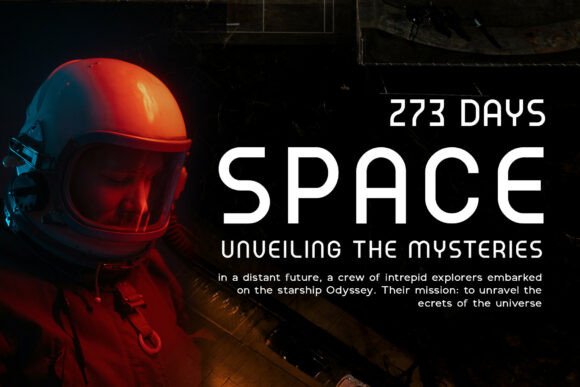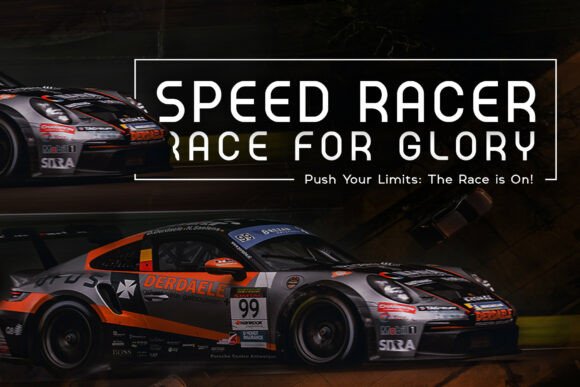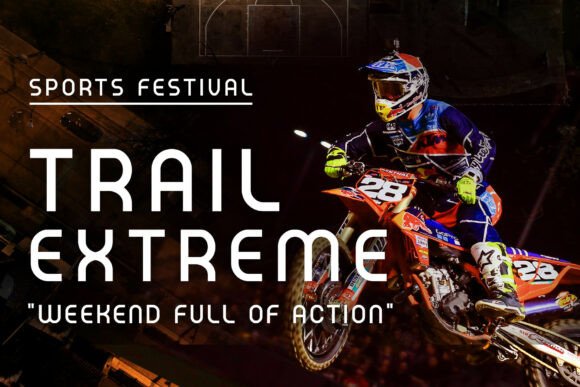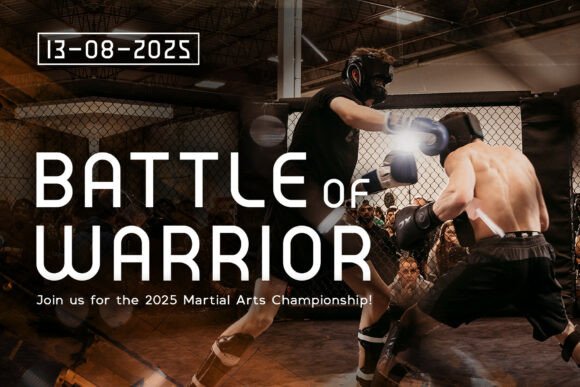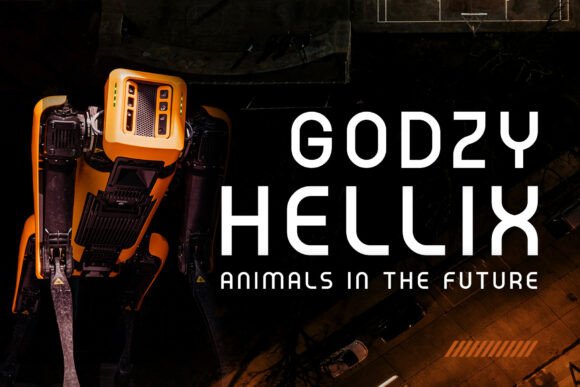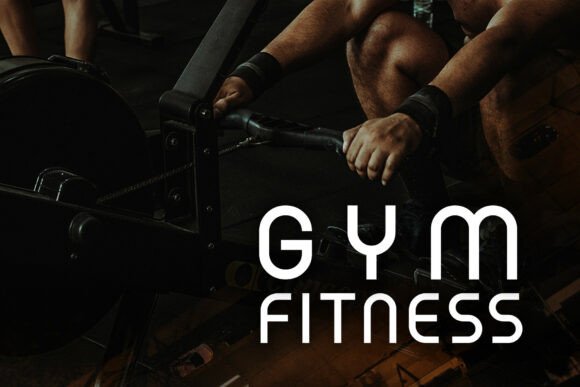
Introducing a New Era of Design: The Felixa Font
Meet the Felixa Font – a modern display font that embodies the spirit of innovation and cutting-edge design. This sleek, precision-crafted font is the perfect solution for designers seeking to infuse their projects with a bold, forward-thinking aesthetic. With its versatility and sophistication, the Felixa Font is a valuable addition to any design toolkit, poised to transform your creative projects and leave a lasting impression.
Felixa Font Key Features
- Font Family: A sans-serif font family designed for modern and clean typography.
- Unique Characteristics: Features a unique blend of modern and minimalist design elements, making it perfect for digital and print media.
Felixa Font Review
Overall, I think the Felixa font is a decent choice for designers looking for a clean and modern sans-serif font. Here are some of its strengths:
- ✨ Legibility: The font is highly legible, making it perfect for body text and other areas where readability is crucial.
- ✨ Versatility: Felixa comes in various weights and styles, allowing designers to experiment with different looks and feels.
- ✨ Modern aesthetic: The font’s clean lines and geometric shapes give it a modern and sleek appearance.
- ⚠️ Limited expressiveness: While Felixa is great for body text, it may not be the best choice for headlines or titles, as it can come across as a bit bland.
- ⚠️ Limited support for non-Latin scripts: Felixa may not support certain non-Latin scripts, which could be a limitation for designers working on international projects.
Overall, I think Felixa is a solid choice for designers who want a clean and modern sans-serif font. While it may not be the most exciting or expressive font, it gets the job done and is easy to work with.
Felixa Font is perfect for:
- Headings and titles in designs and documents.
- Branding and logo designs.
- Editorial and publishing projects.